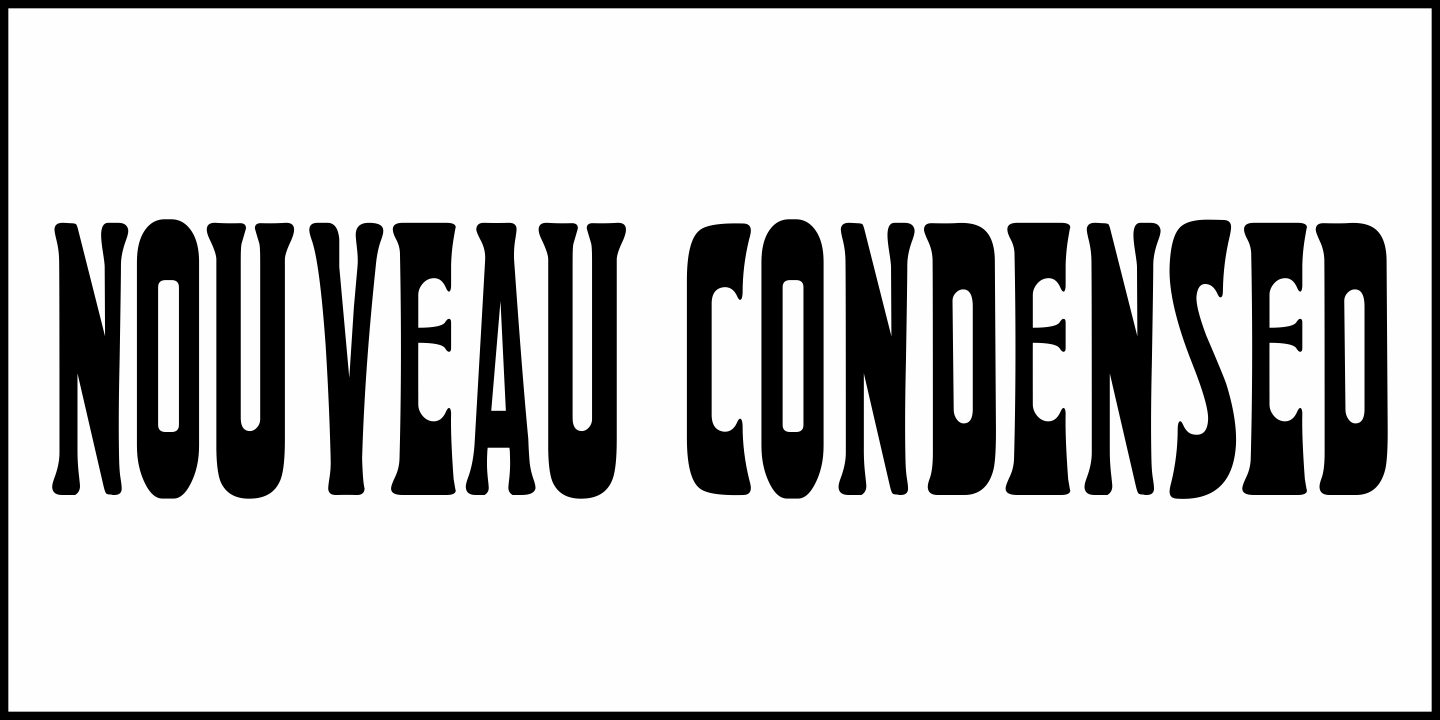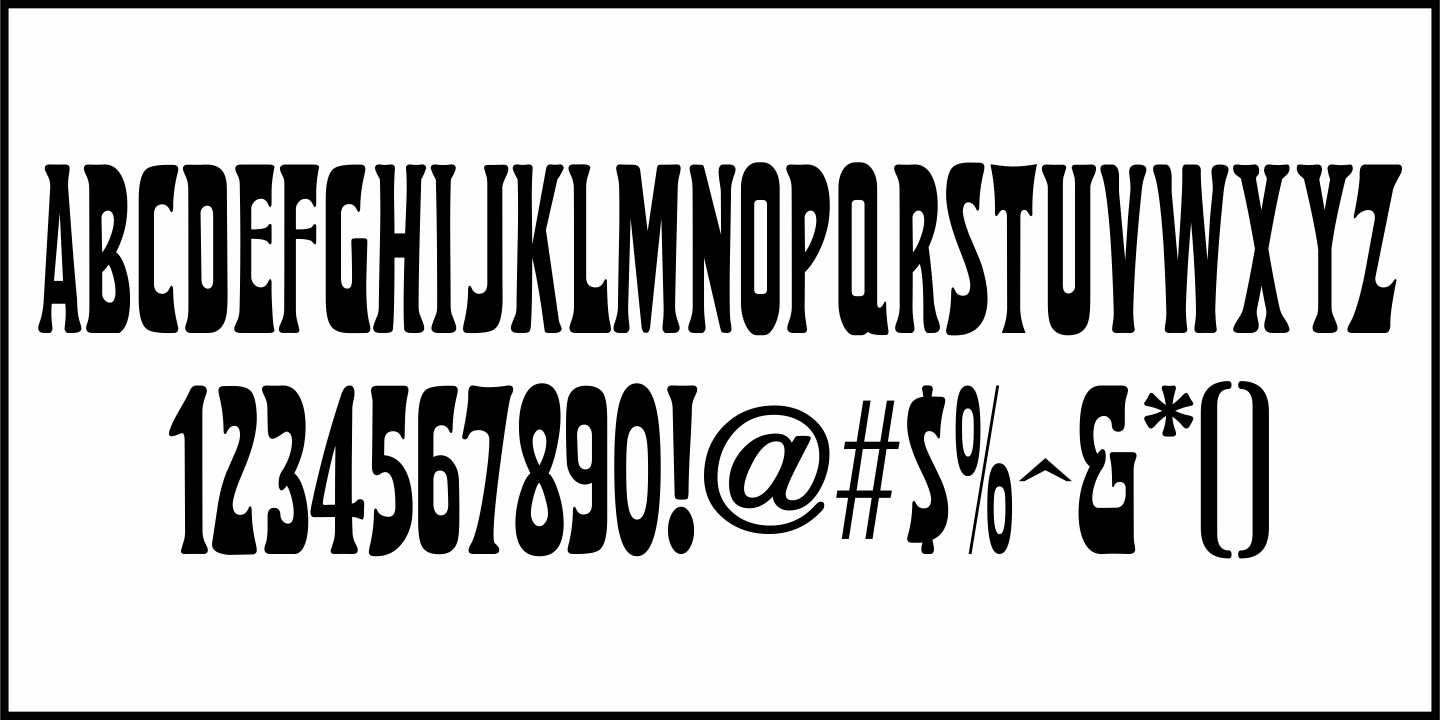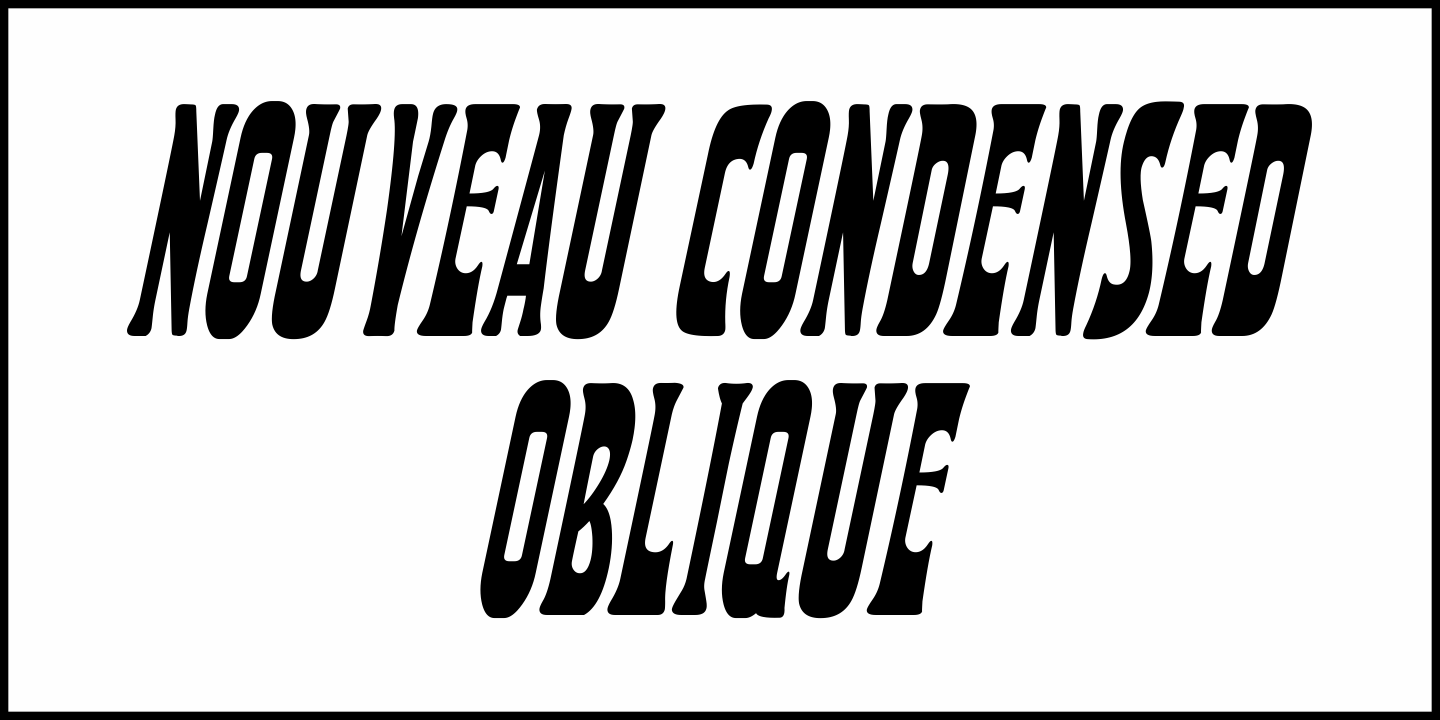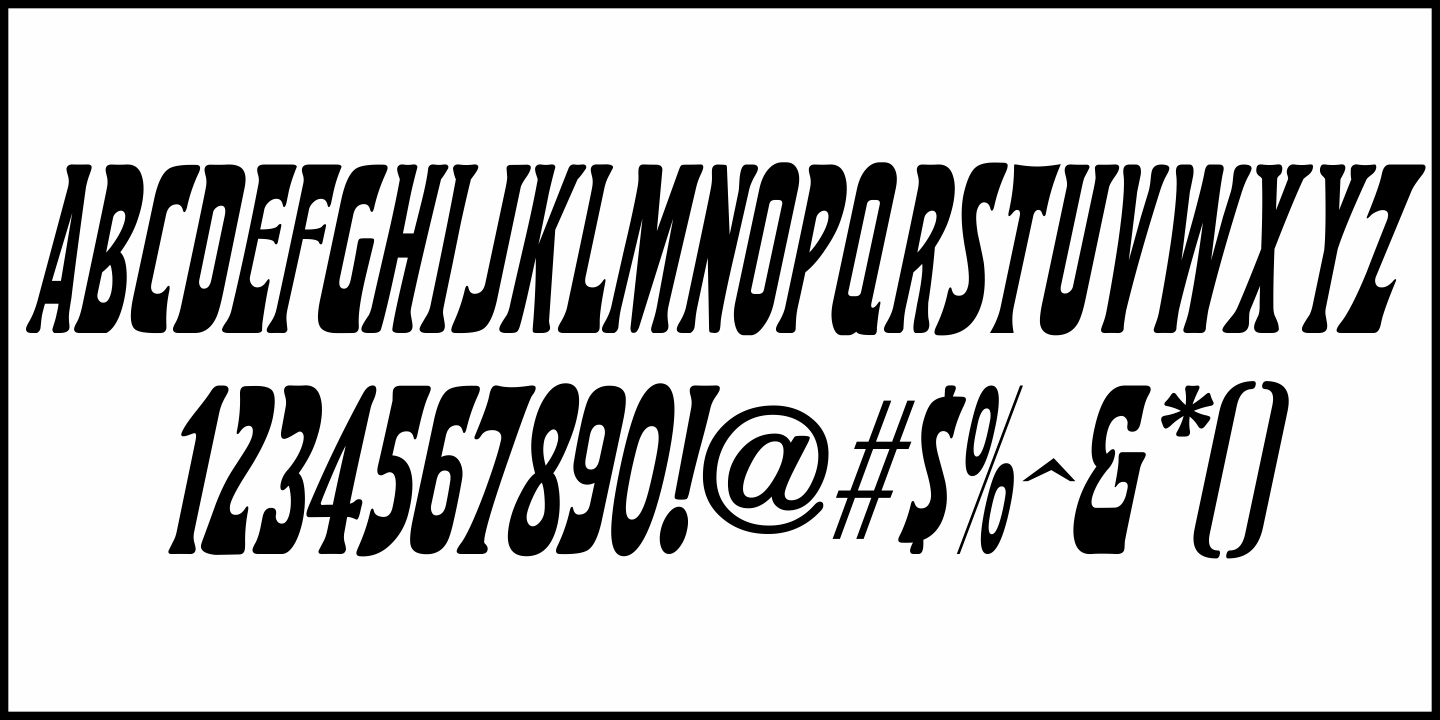
Nouveau Condensed
Hand lettering appearing in various headlines throughout a 1919 issue of the French film trade publication "Le Courrier Cinématographique" ("The Film Mail") was rendered in a condensed Art Nouveau style.
This elegant example of the period's typography is now available as Nouveau Condensed JNL in both regular and oblique versions.